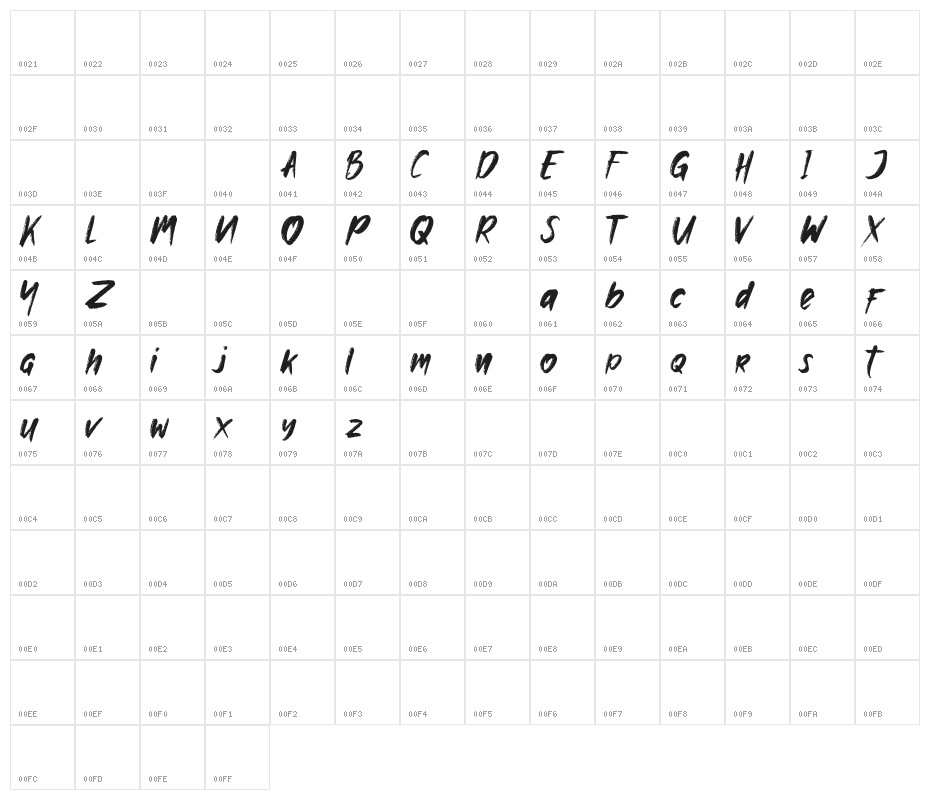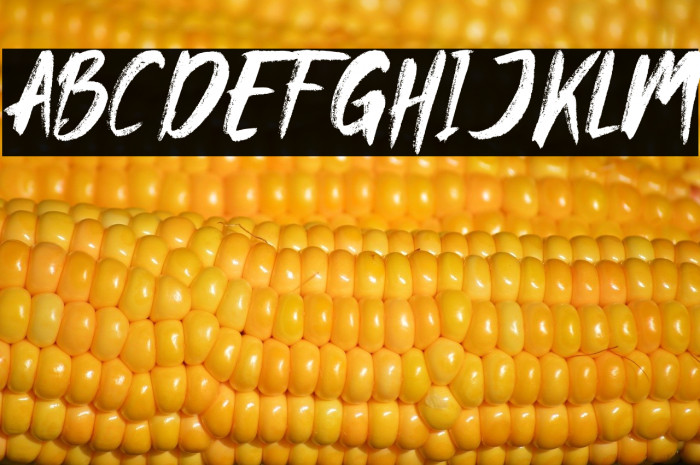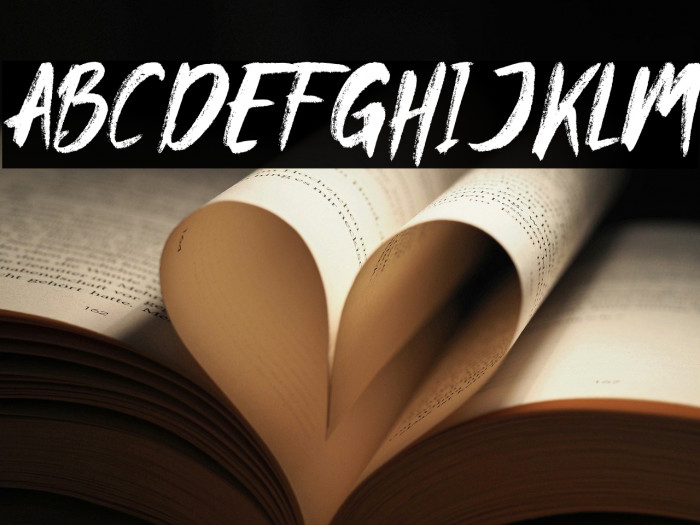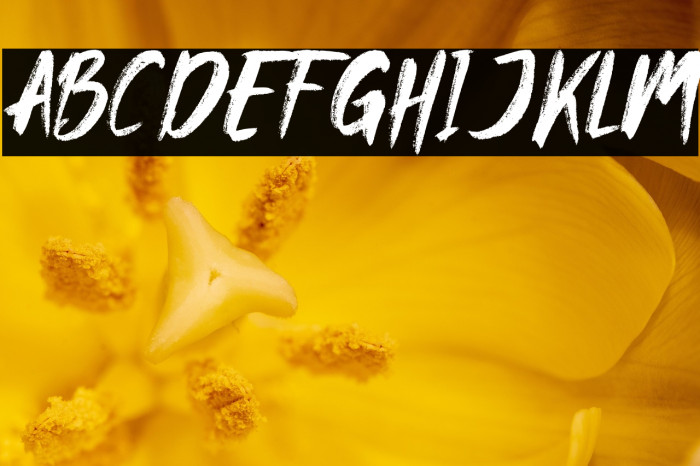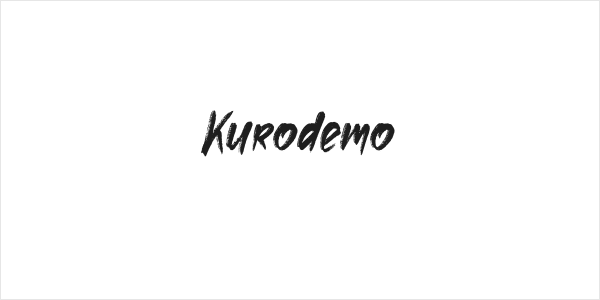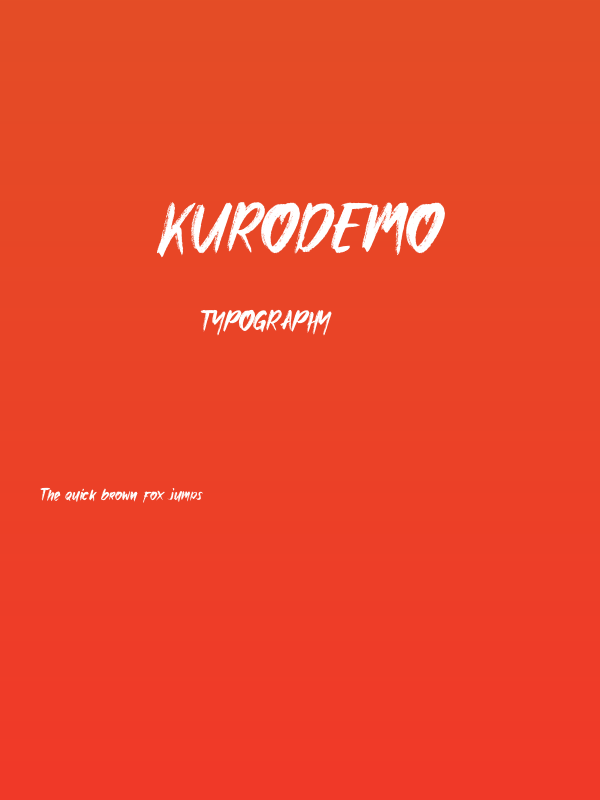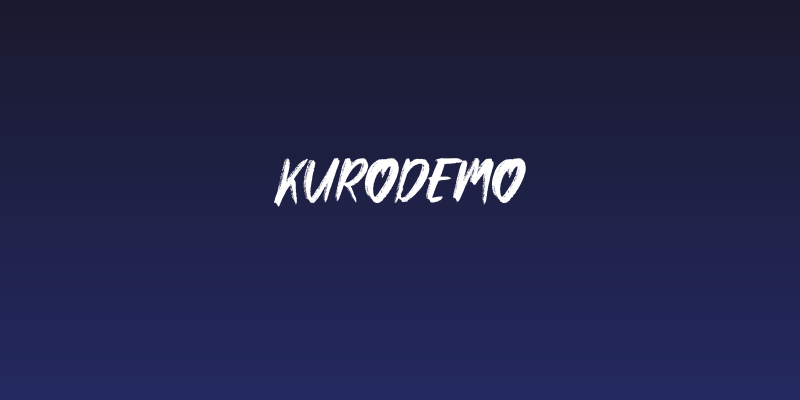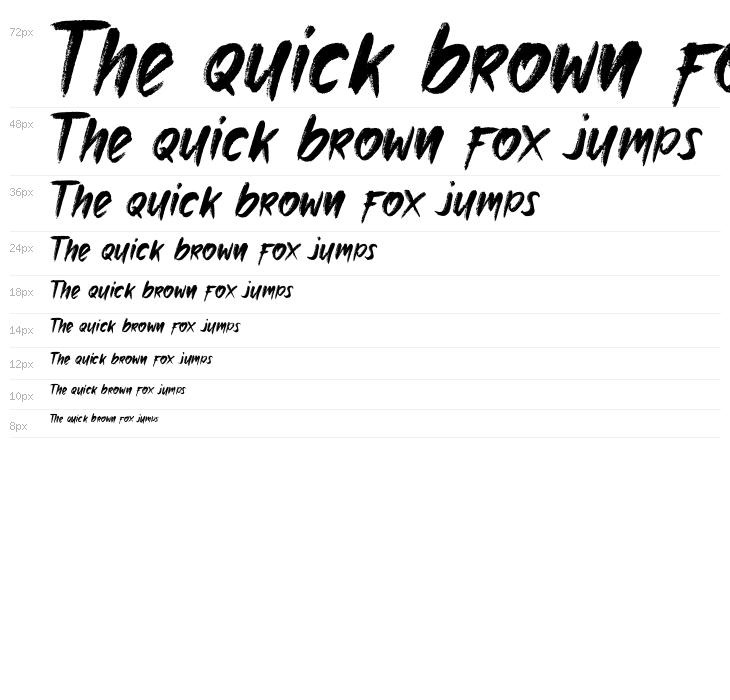
Kurodemo Font
Kurodemo Description
This font features a bold and expressive brush script style, characterized by its dynamic and energetic strokes. The letters have a hand-painted appearance, with varying thickness that adds a sense of movement and vitality. The uppercase and lowercase letters maintain a consistent style, with slightly irregular edges that enhance the handwritten feel. The numbers and special characters are crafted with the same attention to detail, ensuring a cohesive look across all elements. This font is perfect for projects that require a personal touch or a creative flair.
| Proposed Projects | Ideal for branding, packaging, posters, and invitations where a personal or artistic touch is desired. |